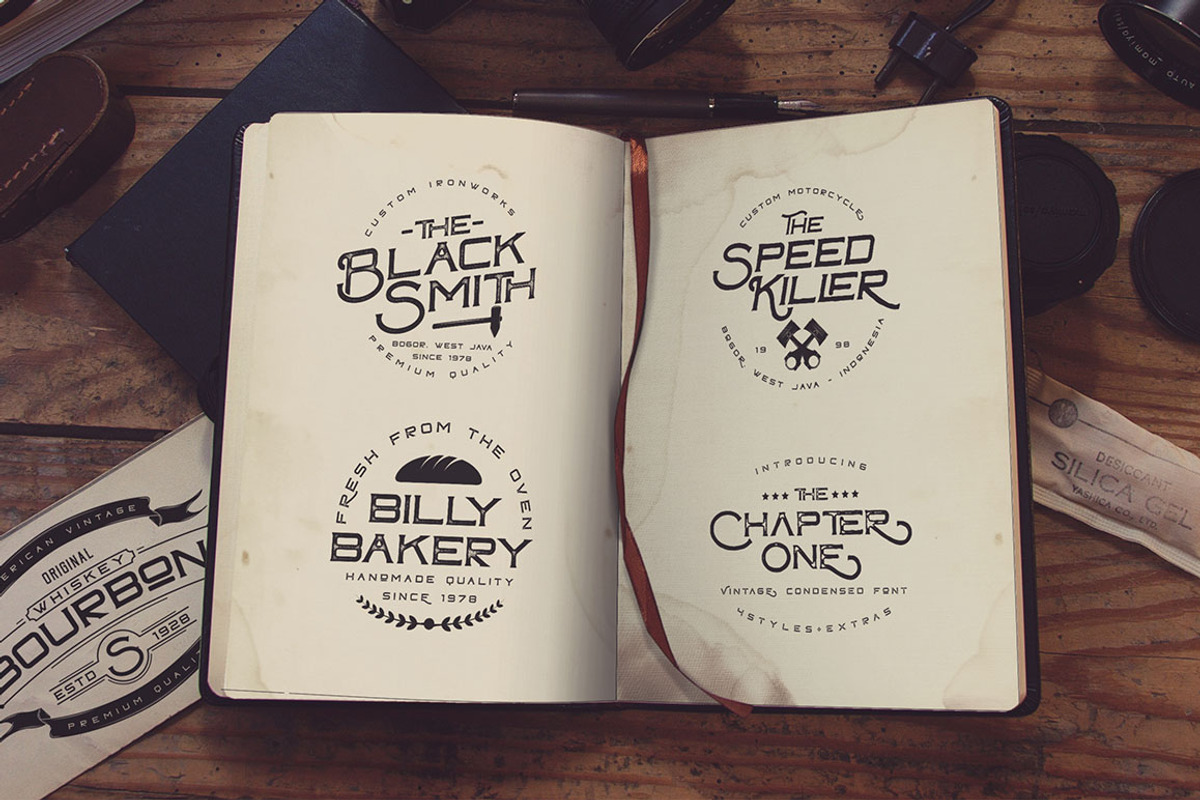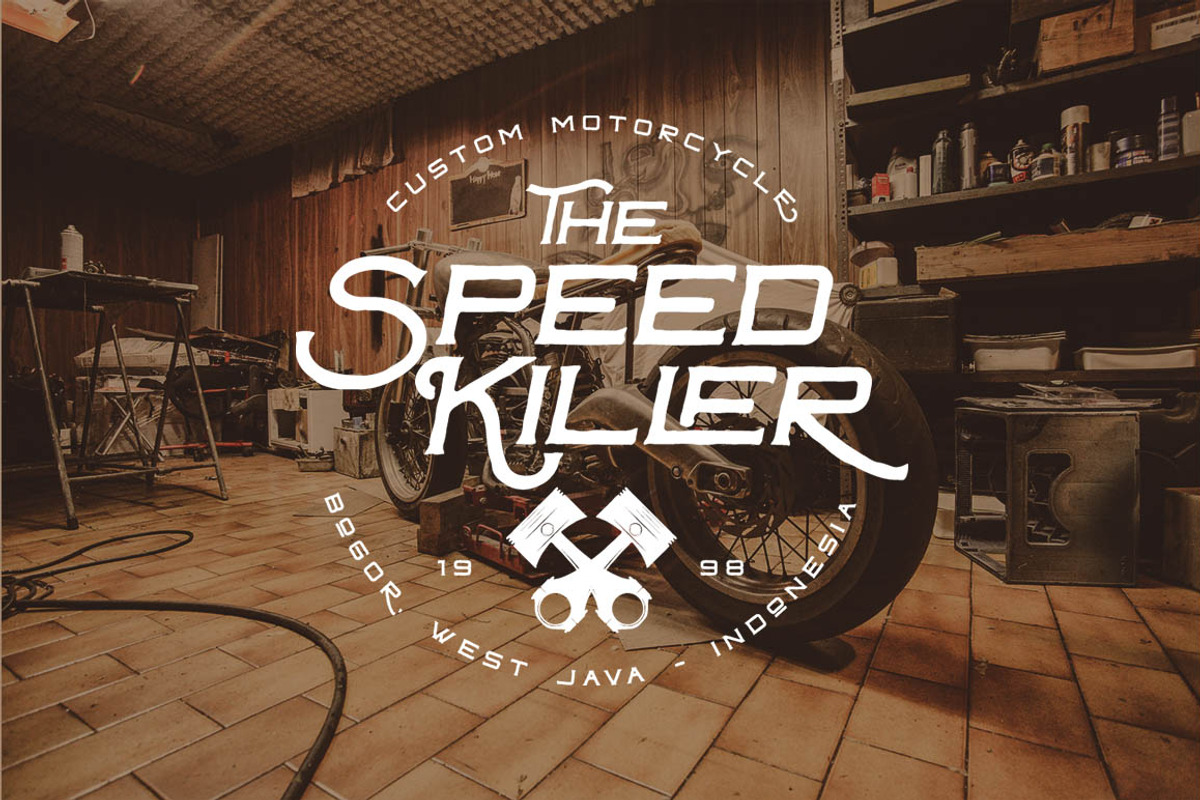
ChapterOne - 4 Font+Extras
Hello friend, let me introduce my product ChapterOne - 4 Font Styles+Extras
Yes, ChapterOne have 4 Style : Clean, Press, Rough & Vintage with vintage condensed character and opentype feature its very helpfull to get Vintage design. This pack include extras logo and you can edit that. Suitable and applicable to create vintage design, branding, logos, product packaging, invitation, qoutes, t-shirt, label poster etc.
Lowercase
Punctuation and Number
Multilingual Language
Alternate Character & Ligature
SS01 & SS02